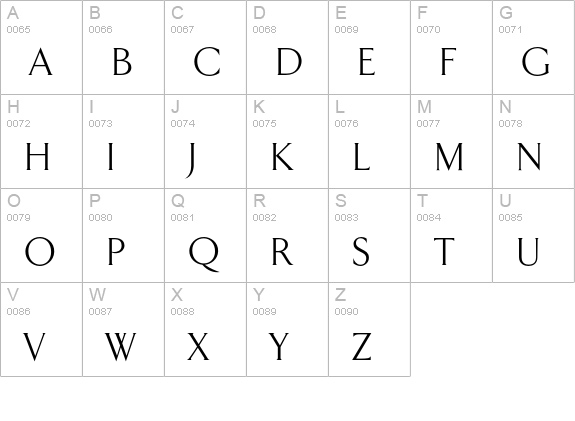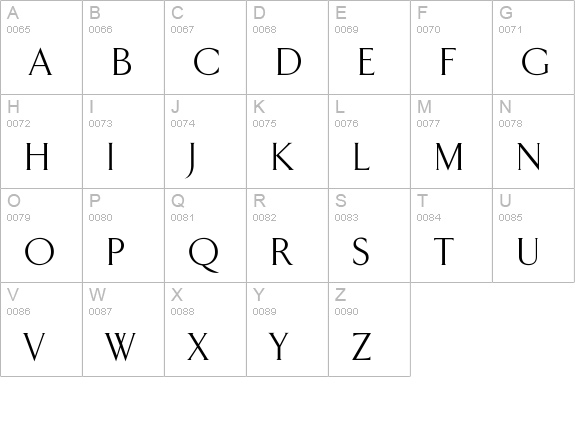
ArrowLight Font Details
Introducing ArrowLight font, a modern and elegant typeface that combines sleek lines with a touch of sophistication. This versatile font is perfect for a wide range of design projects, from branding to editorial work. With its clean and minimalist design, ArrowLight font exudes a sense of professionalism and style. But here's the best part - ArrowLight font is completely free to download! You can get your hands on this stunning typeface at FontsMarket.com and start using it in your projects right away. Whether you're working on a logo, website, or print design, ArrowLight font will elevate your work to the next level. Don't miss out on this fantastic opportunity to enhance your designs with the beauty and elegance of ArrowLight font. Download it now and let your creativity soar!